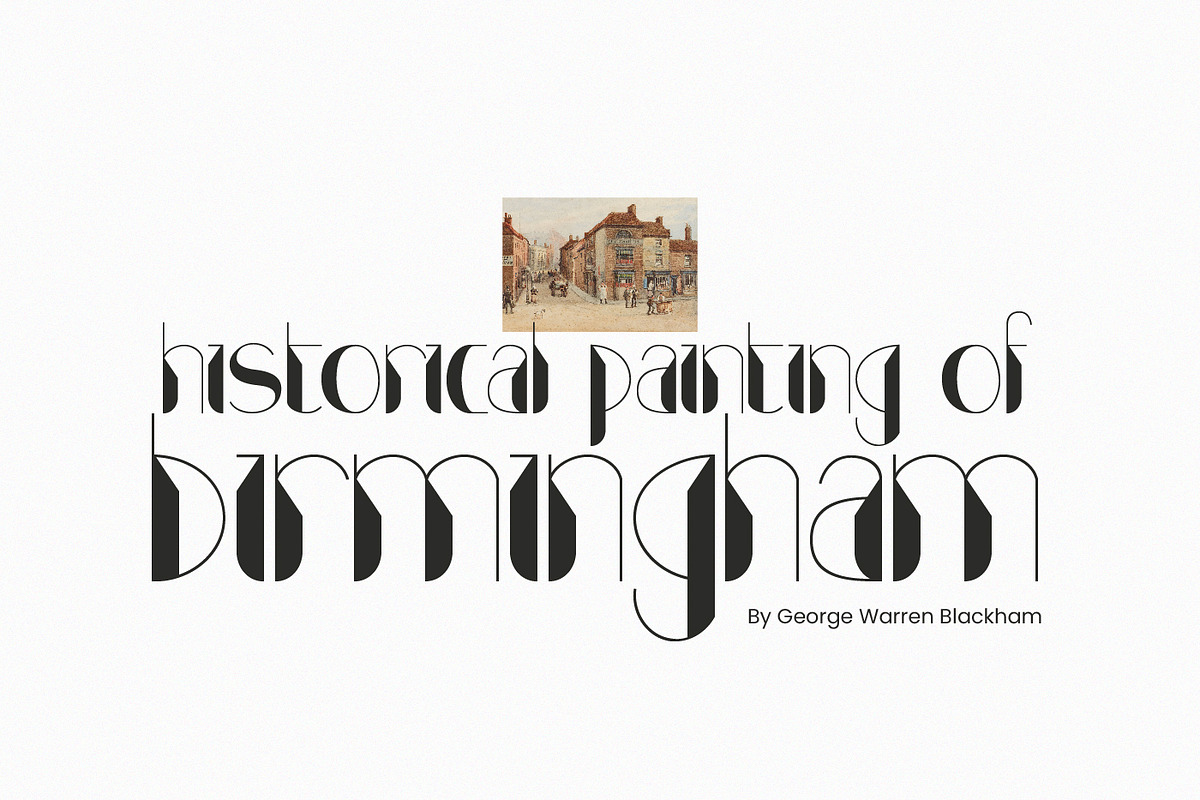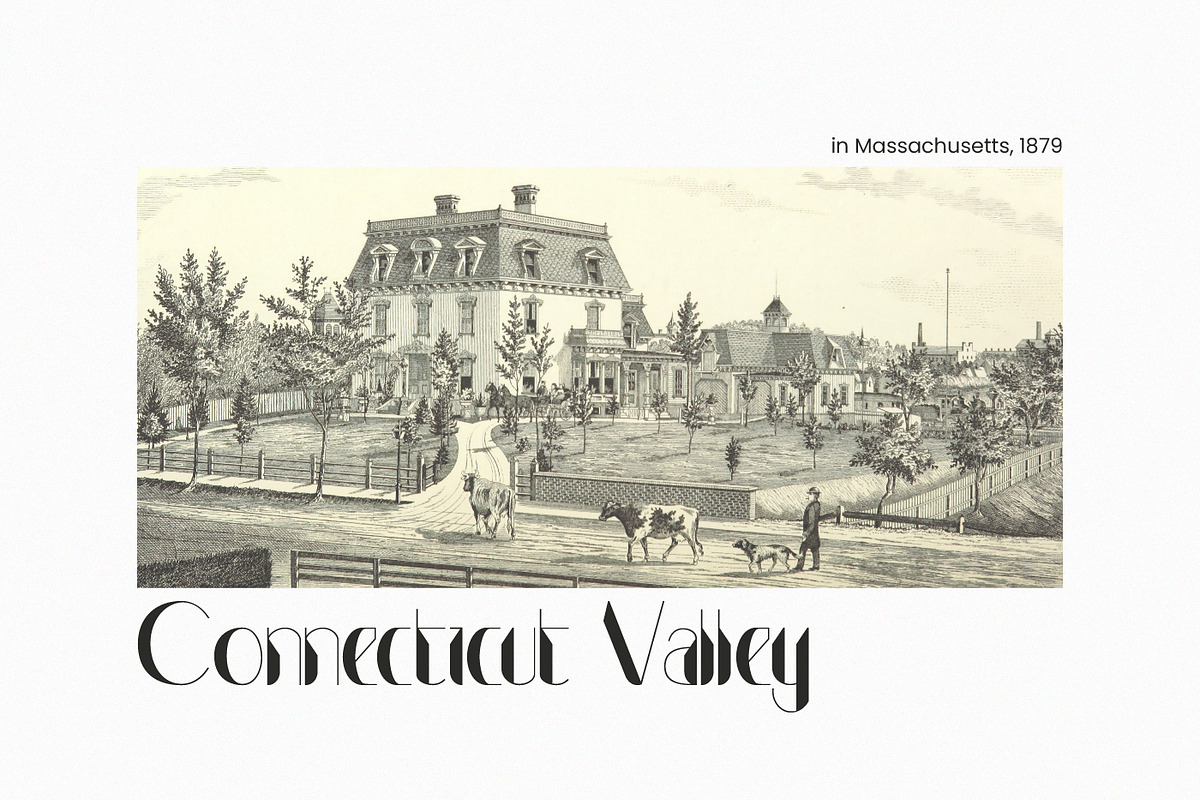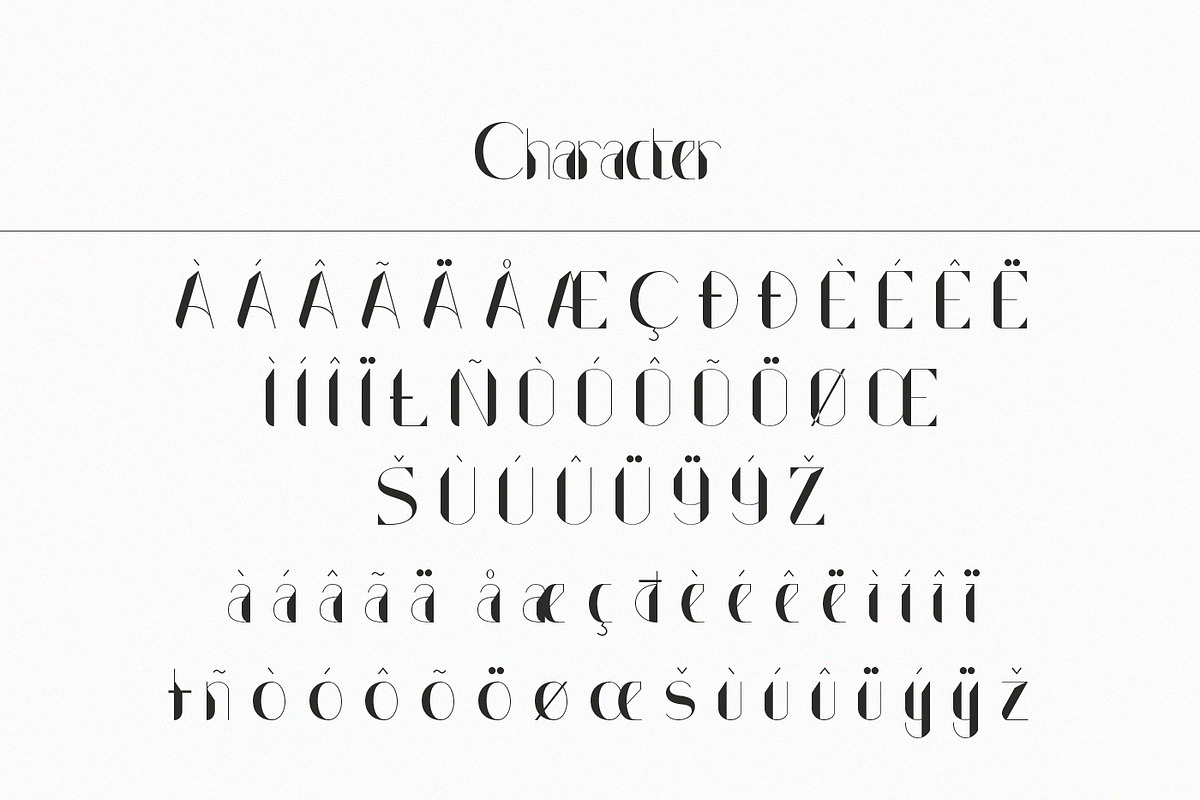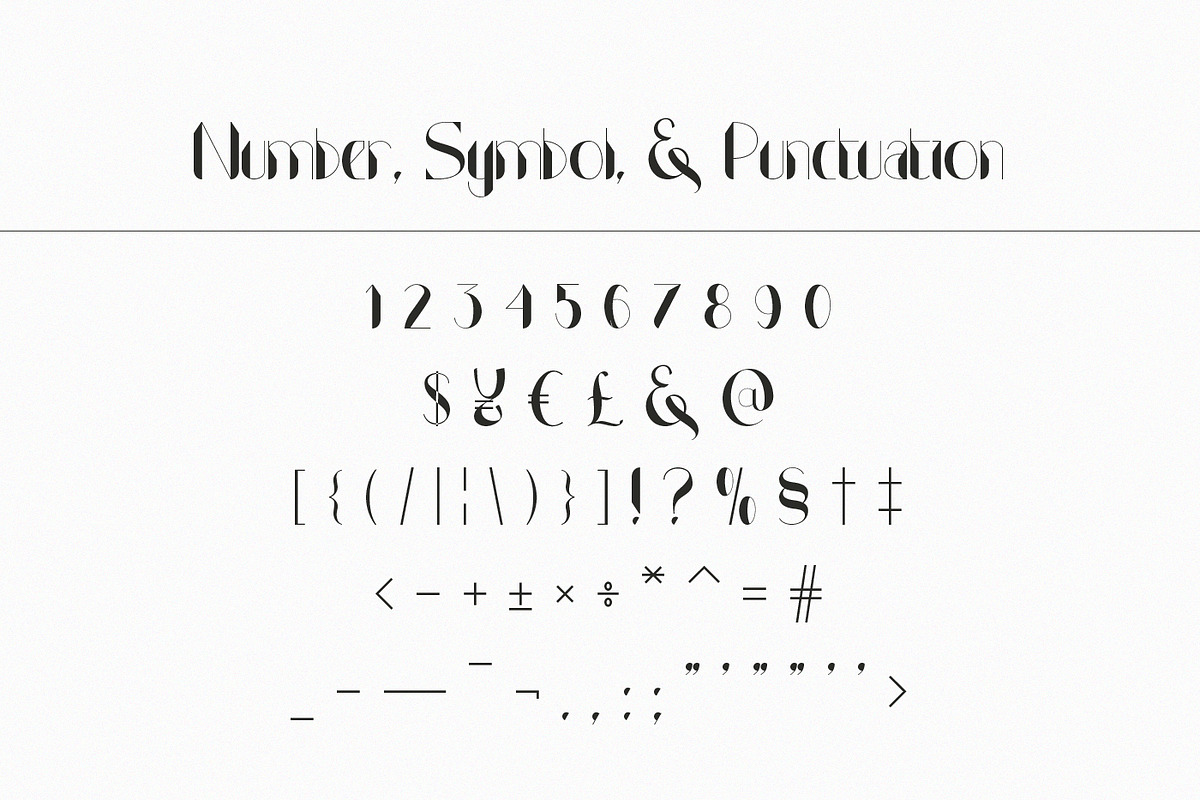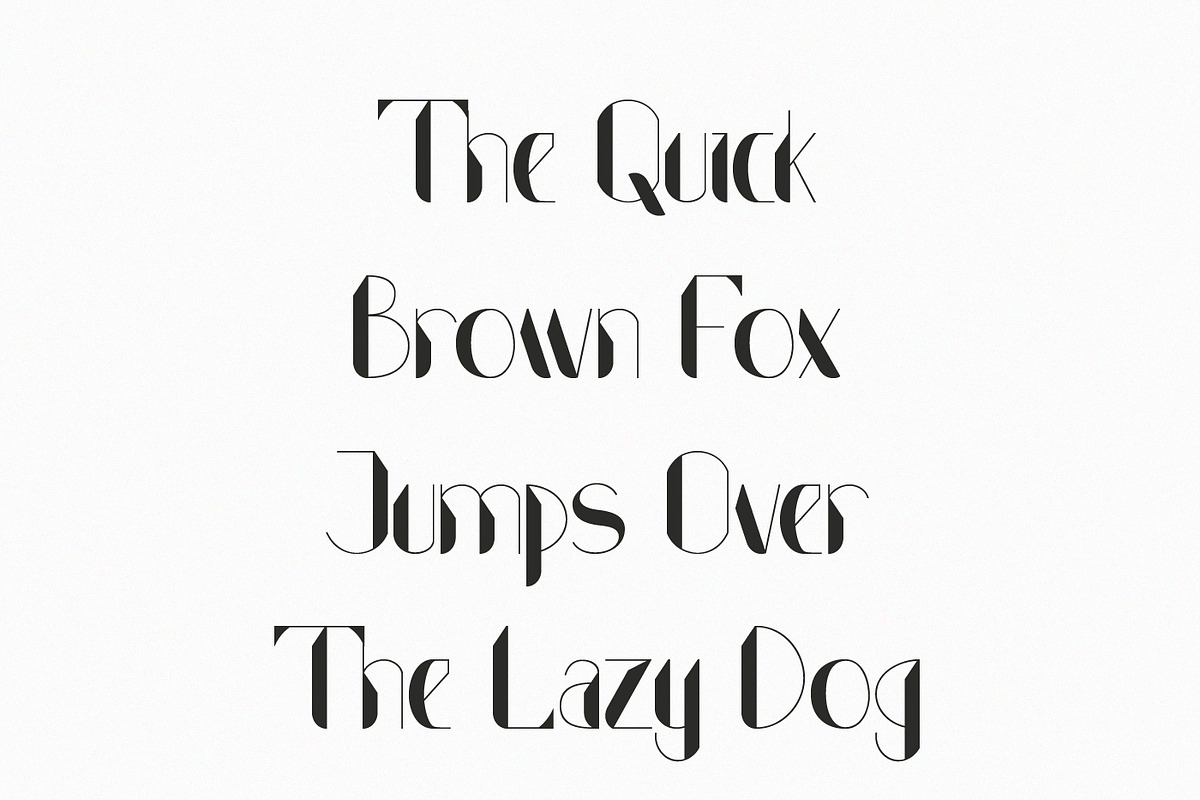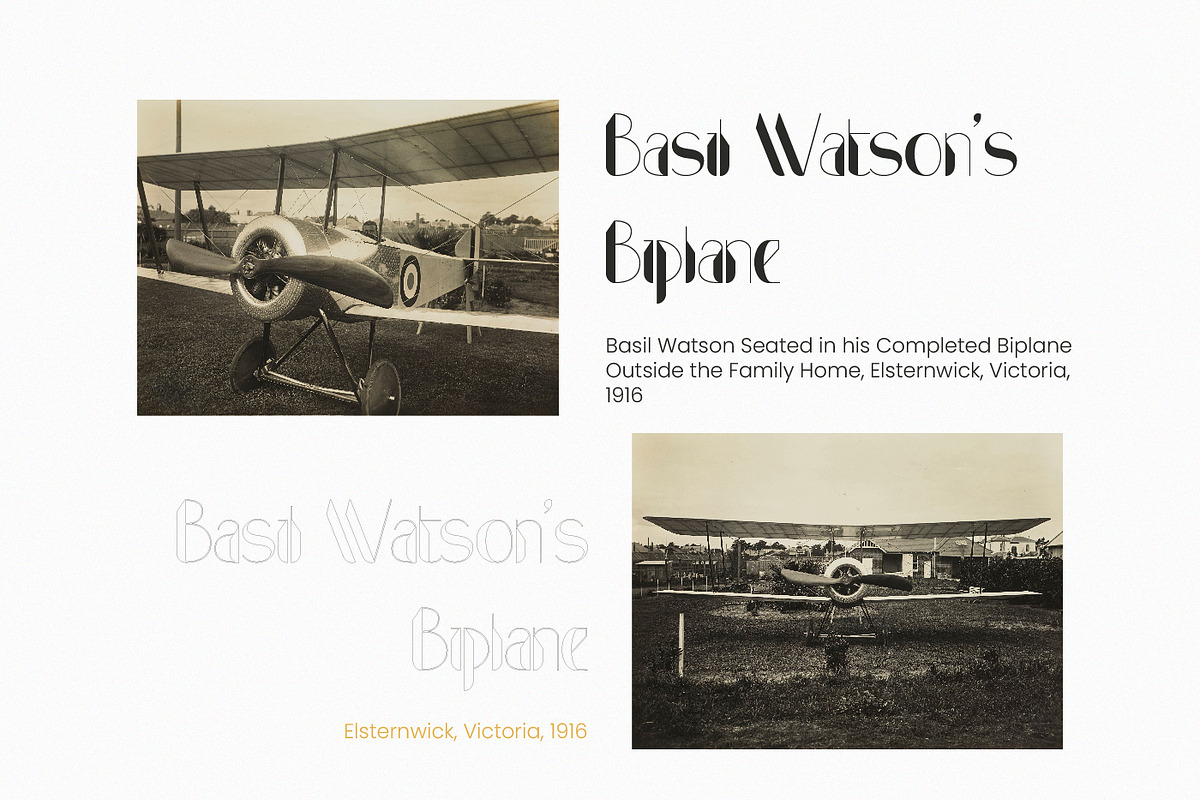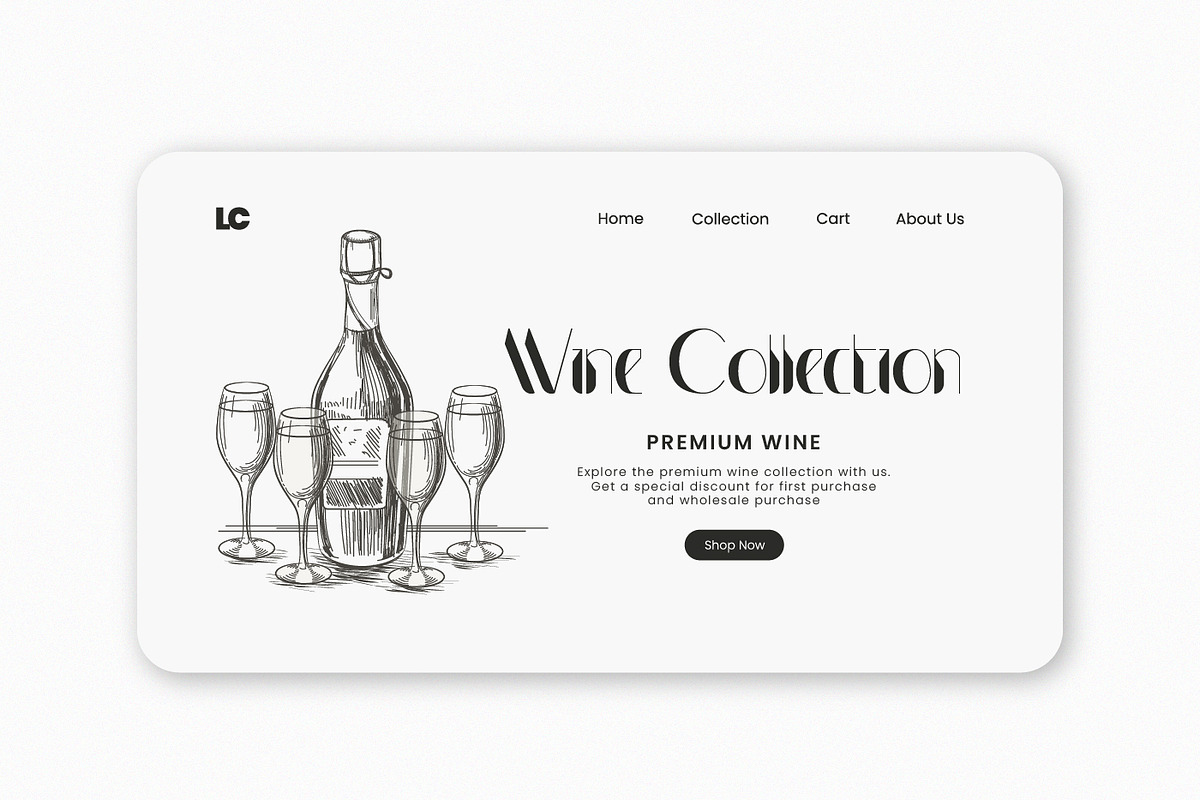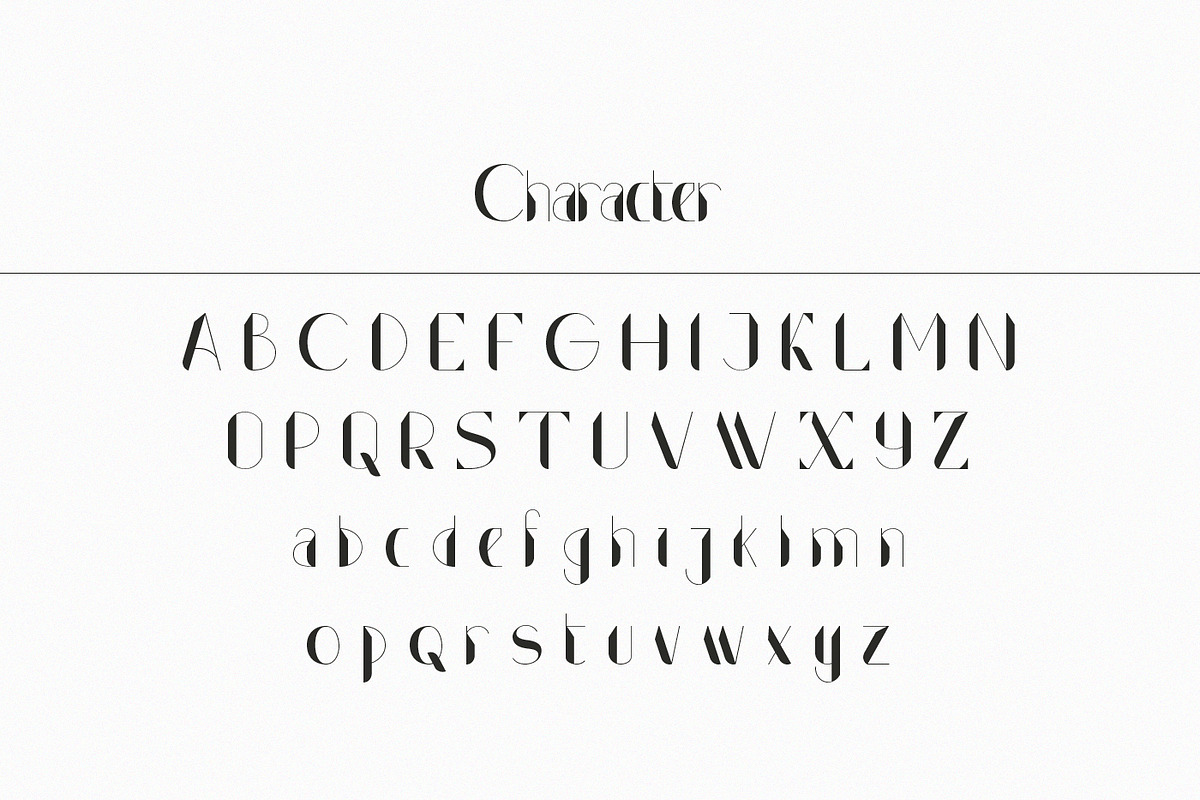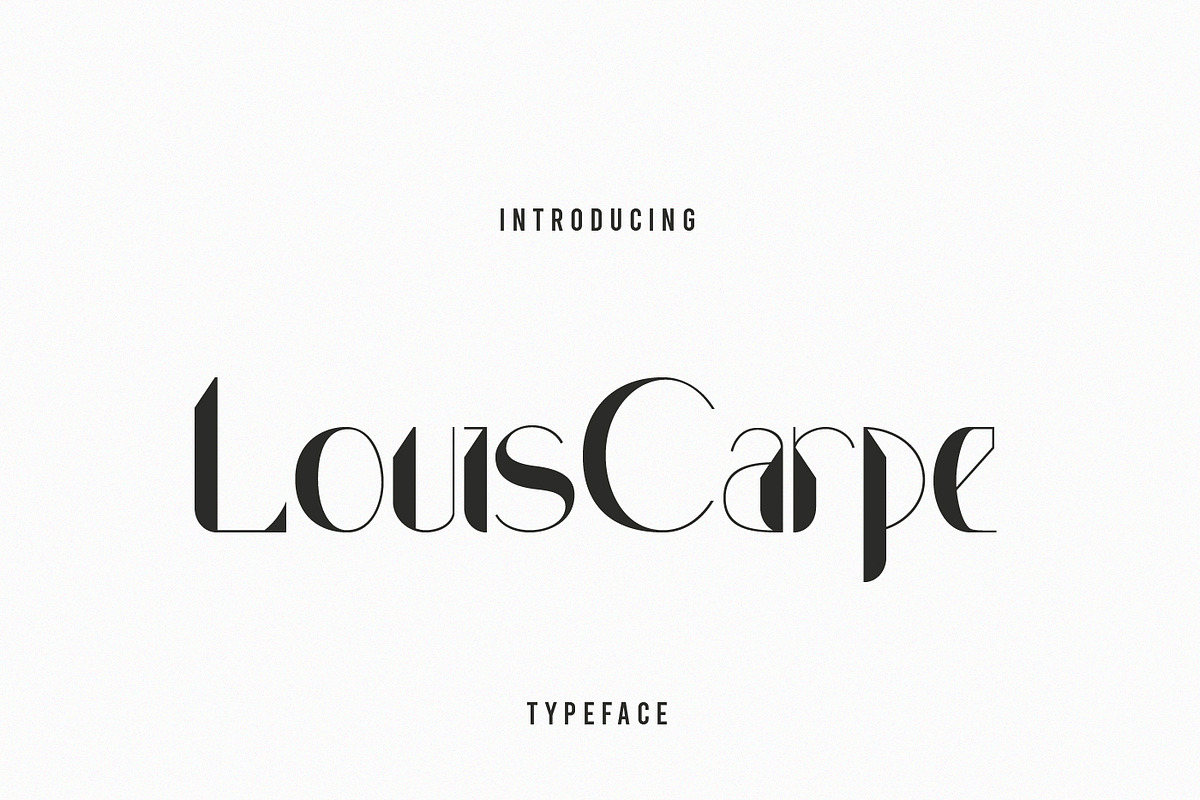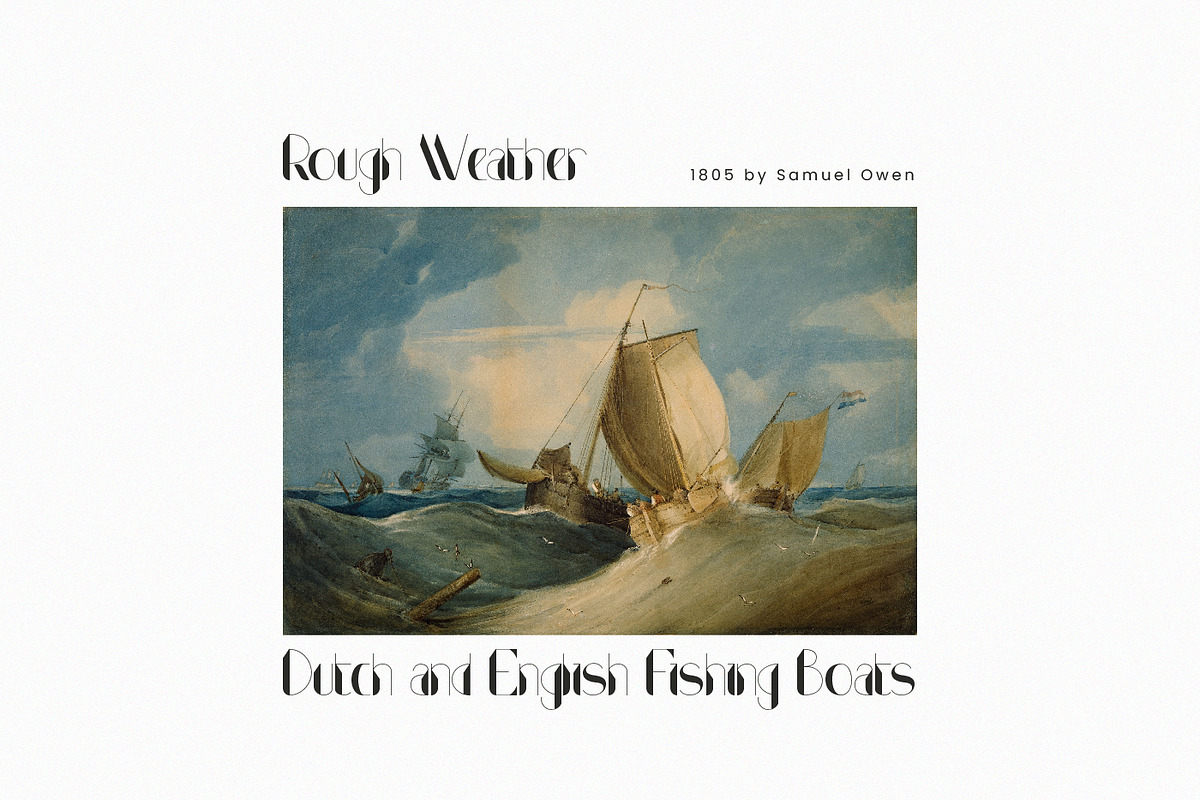
Louis Carpe Modern Display
LouisCarpe Modern Display
LouisCarpe is a latest Modern Display Font that beautifully created. Two different lines creature is made "LouisCarpe" has unique and stylish appearance. Because of it makes this font look elegant and classy. "LouisCarpe" will make your design look extraordinary and irresistible.
LouisCarpe Modern Display is perfect for branding projects, logos, wedding designs, posters, product packaging, label, and much more projects that need stylish taste.